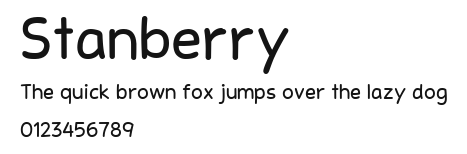
• Font Name: Stanberry
• Font ID: Stanberry Regular
• Full Font Name: Stanberry Regular
• Version: v1.1 - 8/27/2012
• PostScript Name: StanberryRegular
• Designer: Jayvee D. Enaguas (GrandChaos)
About Stanberry.ttf
Stanberry.ttf is a modern, elegant sans-serif font designed for ultimate readability and visual harmony. Perfect for branding, headlines, web design, and print materials.